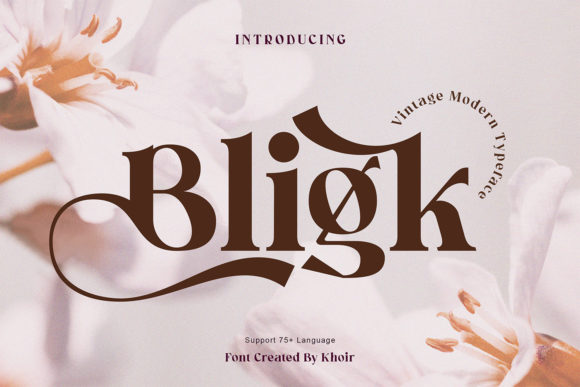
The Bligk Font: A Modern Serif with Vintage Flair
Have you ever been in the middle of a design project, and suddenly, you’re stuck on finding the perfect font? I recall a recent experience where I was working on a branding design for a luxury wedding planner, and I just couldn’t find a font that screamed elegance and sophistication. That’s when I stumbled upon the Bligk font, and it completely transformed my design.
What is Bligk Font?
Bligk is a modern serif font with a vintage twist, designed to give your projects a unique and elegant impression. This beautiful font is perfect for creating stunning logos, branding designs, invitations, novels, posters, books, magazines, labels, web designs, greeting wedding cards, and so much more!
PUA Encoded for Easy Access
One of the best things about Bligk is that it’s PUA (Private Use Area) encoded, which means you can access all the glyphs and swashes with ease. This feature makes it incredibly versatile and user-friendly, allowing you to experiment with different styles and designs.
What I Love About Bligk ✨
• ✅ Elegant and sophisticated design
• ✅ Highly versatile and adaptable
• ✅ Perfect for a wide range of design projects
While Bligk is an amazing font, there are a few minor limitations to be aware of. For instance, it may not be the best choice for very small text sizes, as some of the finer details may get lost. ⚠️ Additionally, some users may find the vintage flair a bit too ornate for certain design projects.
The Designer Inspiration Behind Bligk
Bligk was designed with the goal of creating a modern serif font with a vintage twist. The designer wanted to create a font that would be perfect for a wide range of design projects, from luxury branding to wedding invitations. With its elegant and sophisticated design, Bligk is sure to become a favorite among designers and crafters alike.
Q: Is Bligk suitable for body text?
A: While Bligk is a beautiful font, it’s best suited for headlines, titles, and short paragraphs. For body text, you may want to consider a more traditional serif font.